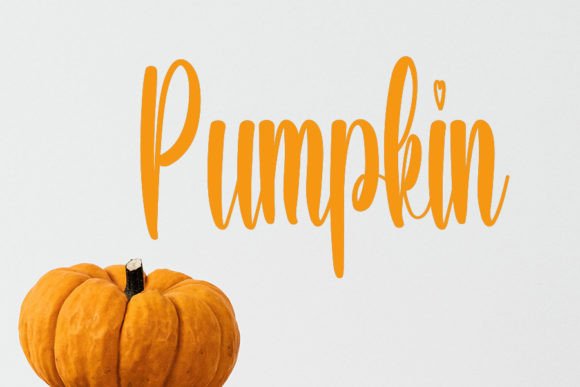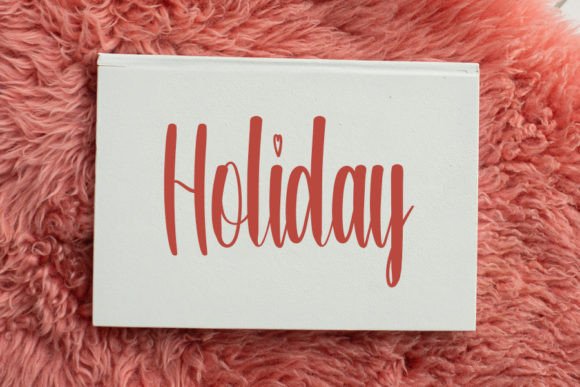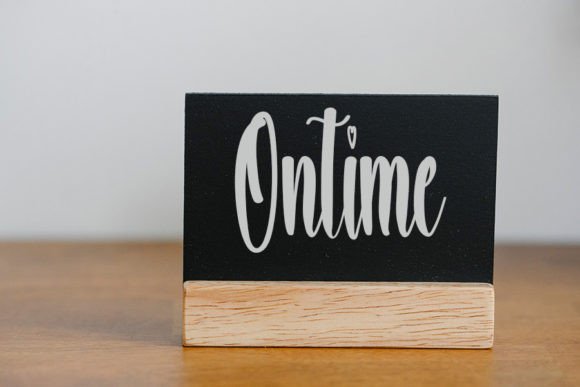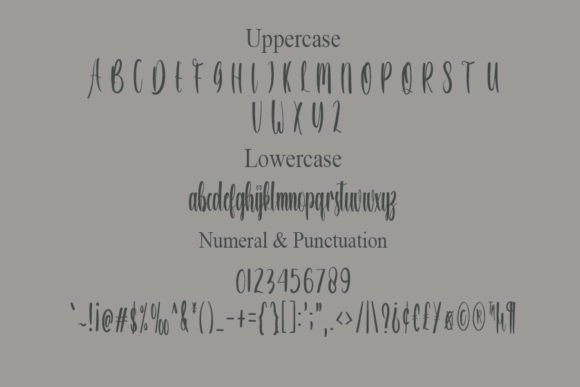
Bring Your Designs to Life with the Butterfly Font
There’s nothing quite like the rush of inspiration that comes when you’re working on a creative project. You’re brainstorming ideas, sketching out concepts, and experimenting with different fonts – and suddenly, everything clicks into place. You’ve found the perfect combination of style and substance, and your project starts to come alive.
This is exactly what the Butterfly Font is designed to help you achieve. With its friendly, handwritten style, it’s the perfect addition to any font library. Whether you’re working on a blog post, a social media campaign, or a branding project, the Butterfly Font will bring a touch of warmth and personality to your designs.
For designers, the Butterfly Font is a valuable tool that can help elevate your projects and make them truly stand out. Its unique character and friendly feel will set you apart from the crowd and leave a lasting impression on your audience.
Key Features of Butterfly Font
- Font Family: Butterfly is a unique, handwritten font designed for creative projects and digital applications.
- Unique Characteristics: Features a whimsical, hand-painted style with subtle texture and imperfections, giving it a natural, organic feel.
Designer Review: Butterfly Font
At first glance, the Butterfly Font caught my attention with its whimsical and playful vibe ✨. The combination of delicate lines and soft curves creates a sense of elegance and sophistication. It’s perfect for designers looking to add a touch of whimsy to their projects, especially those focused on children’s products, magazines, or fashion brands.
The font comes in a range of weights and styles, from light to bold, making it versatile for various applications. The italic version adds an extra layer of flair, making it ideal for titles or headings ✨. I also appreciate the font’s legibility, even at smaller font sizes.
However, I did encounter some limitations ⚠️:
- Some characters may not render correctly in certain situations, such as when used in combination with other fonts or at extremely small sizes.
- The font may not be the best choice for text-heavy projects, as it can be slow to read due to its ornate design.
- Customization options are limited, which may be a concern for designers who require precise control over their typography.
Overall, the Butterfly Font is a lovely addition to any designer’s toolkit, but it’s essential to consider its limitations before using it for critical applications.
Tips for Getting the Most Out of the Butterfly Font
Use the Butterfly Font for whimsical and creative projects, such as wedding invitations, birthday cards, and children’s book illustrations.
Experiment with different font sizes, colors, and styles to create unique and eye-catching designs.
Pair the Butterfly Font with other decorative fonts to create a playful and festive look.
The Butterfly Font is commonly used for:
Children’s book illustrations and educational materials
Party invitations and decorations
Whimsical and creative projects that require a playful and festive look
Alternatives to Butterfly Font
Pacifico is a beautiful, elegant script font that is perfect for designs that require a touch of sophistication and whimsy. It is ideal for wedding invitations, greeting cards, and other formal events. Compared to Butterfly Font, Pacifico has a more refined and luxurious feel, making it suitable for high-end designs.